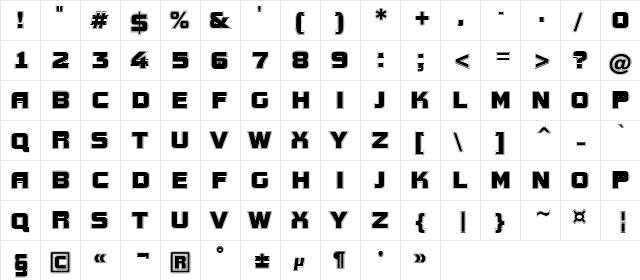
a_ConceptoTitulGr Regular Font Preview
a_ConceptoTitulGr Regular
Design Context for a_ConceptoTitulGr Typeface
a_ConceptoTitulGr offers clean, dependable letterforms without strong stylistic allegiance, making it a practical choice for designers who need flexibility.
Pro Tip: Pair a_ConceptoTitulGr with a font of contrasting weight or personality to build a more expressive typographic hierarchy.